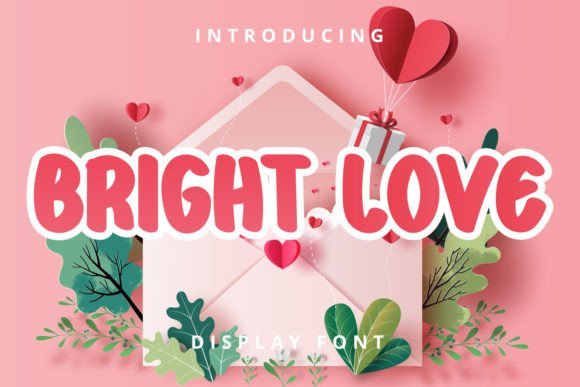
The Perfect Match for Whimsical Designs: Bright Love Font
Have you ever been brainstorming ideas for a children’s book cover or a fun social media campaign, only to be stuck on the perfect font? That’s where the magic happens, and the Bright Love Font comes to the rescue.
Bright Love Font is a delightful display font designed to capture the essence of playfulness and joy. Its cute and fresh design makes it an ideal choice for any project that needs to stand out from the crowd. Whether you’re working on a children-themed design or a campaign that requires a touch of whimsy, this font is sure to bring a smile to your audience’s faces.
As a designer, you know how valuable it is to have the right tools at your disposal. The Bright Love Font is a versatile asset that can elevate your work and make it truly shine. With its bright and cheerful vibe, it’s no wonder why this font has become a go-to choice for creatives looking to add a touch of fun and personality to their designs.
- Unique Characteristics: This font features a unique blend of modern and vintage elements, with a distinctive touch of elegance and sophistication, making it ideal for various design projects.
Designer Review: Bright Love Font
I recently had the chance to work with the Bright Love Font, and I must say it’s a font with both charm and flaws. ✨
- ✨ Unique aesthetic: Bright Love Font has a distinct, playful style that can add a touch of whimsy to your designs.
- ✨ Customizable: The font offers various weights and styles, making it easy to adjust the look to suit your project’s needs.
- ✨ Versatile: Bright Love Font can be used in a range of contexts, from digital interfaces to print materials.
- ⚠️ Legibility issues: At smaller font sizes, Bright Love Font can be difficult to read, especially for those with visual impairments.
Overall, Bright Love Font is a fun and creative option for designers looking to add some personality to their projects. However, it’s essential to consider its limitations and potential impact on legibility and accessibility. With proper use and consideration, this font can be a valuable addition to your design toolkit.
Tips for Getting the Most Out of Bright Love Font
Here are some tips to help you get the most out of Bright Love Font:
- Use Bright Love Font for titles and headings to add a touch of elegance and sophistication.
- Pair Bright Love Font with a clean and simple background to let the font take center stage.
- Experiment with different font sizes and colors to create a unique and eye-catching design.
Bright Love Font is perfect for:
- Birth announcements and baby shower invitations.
- Anniversary and birthday cards.